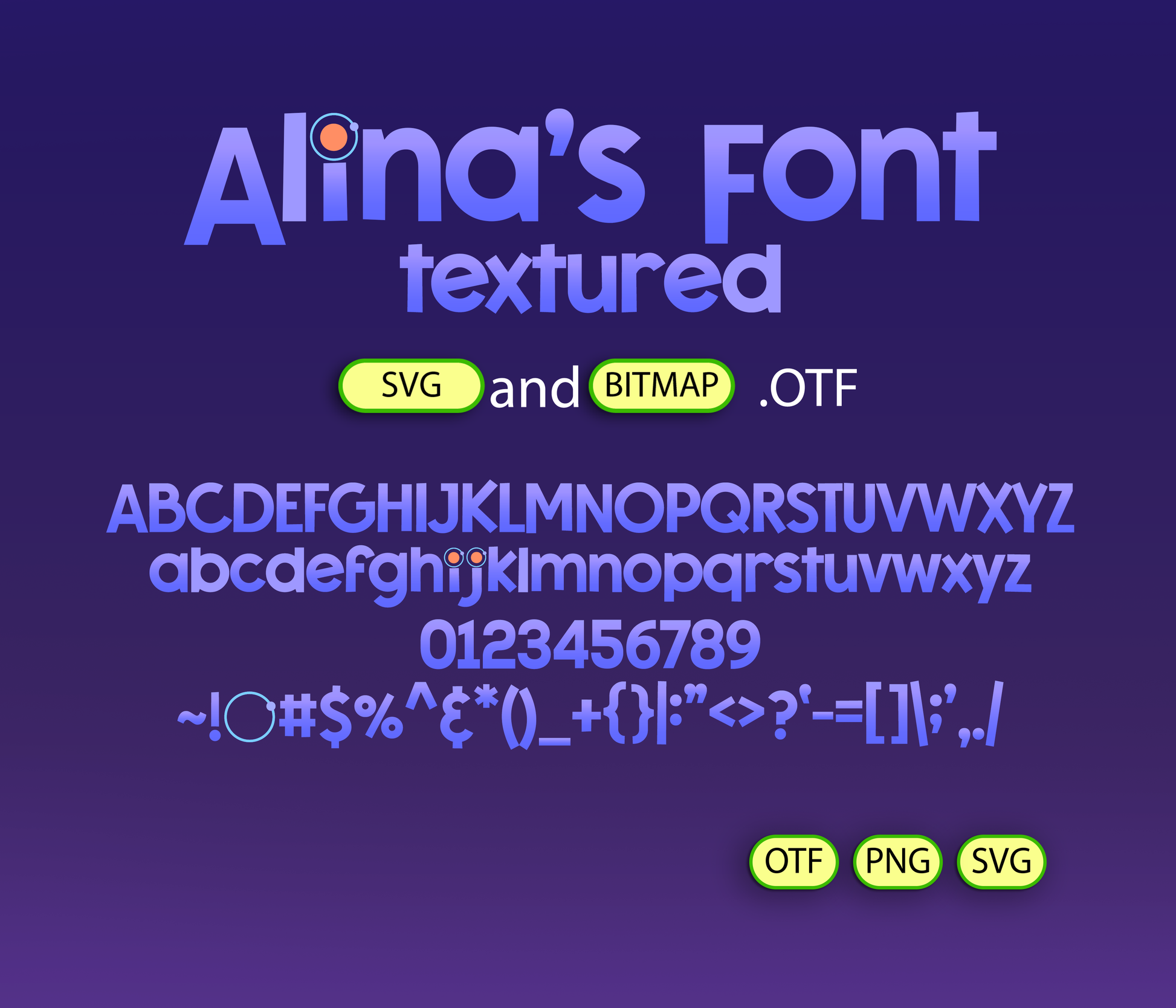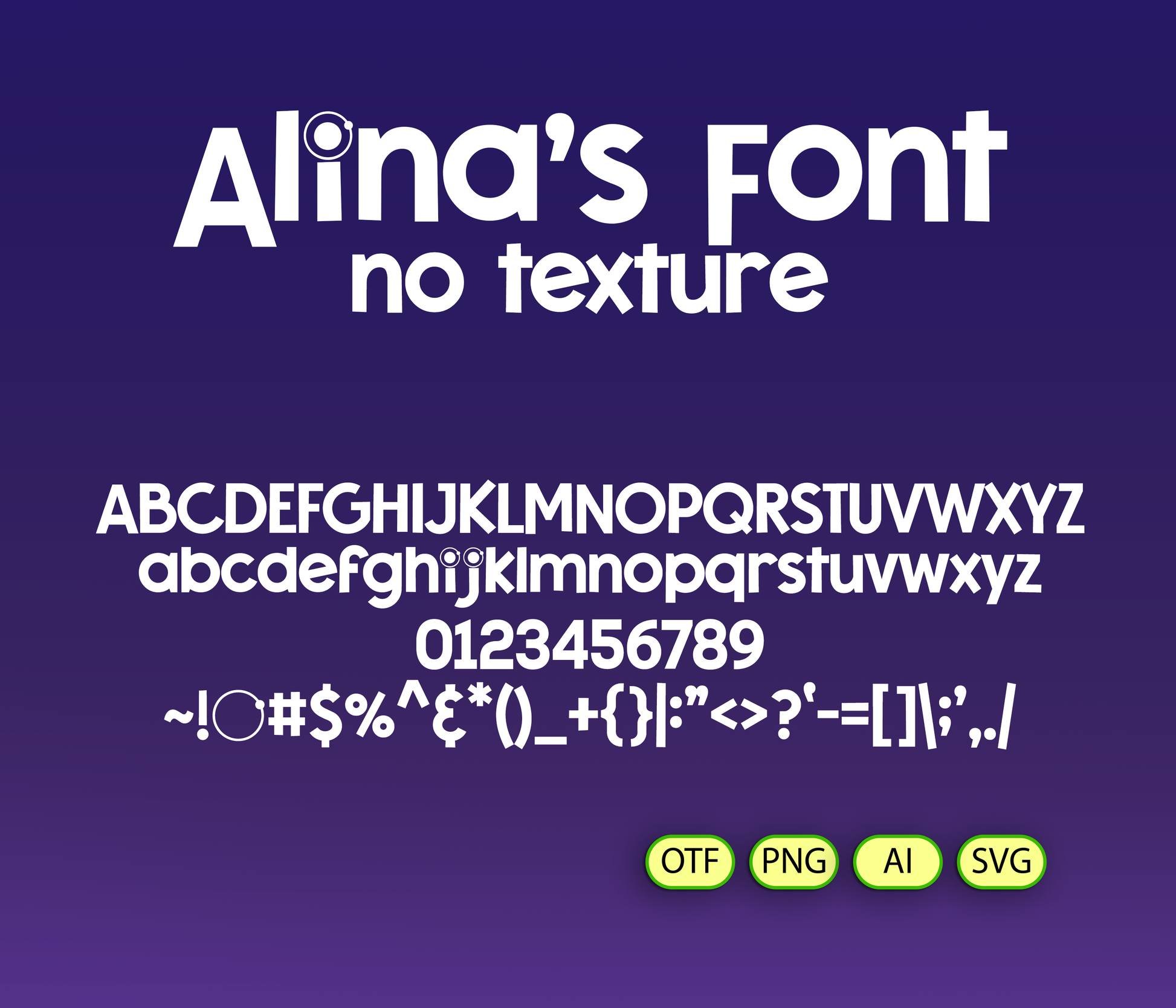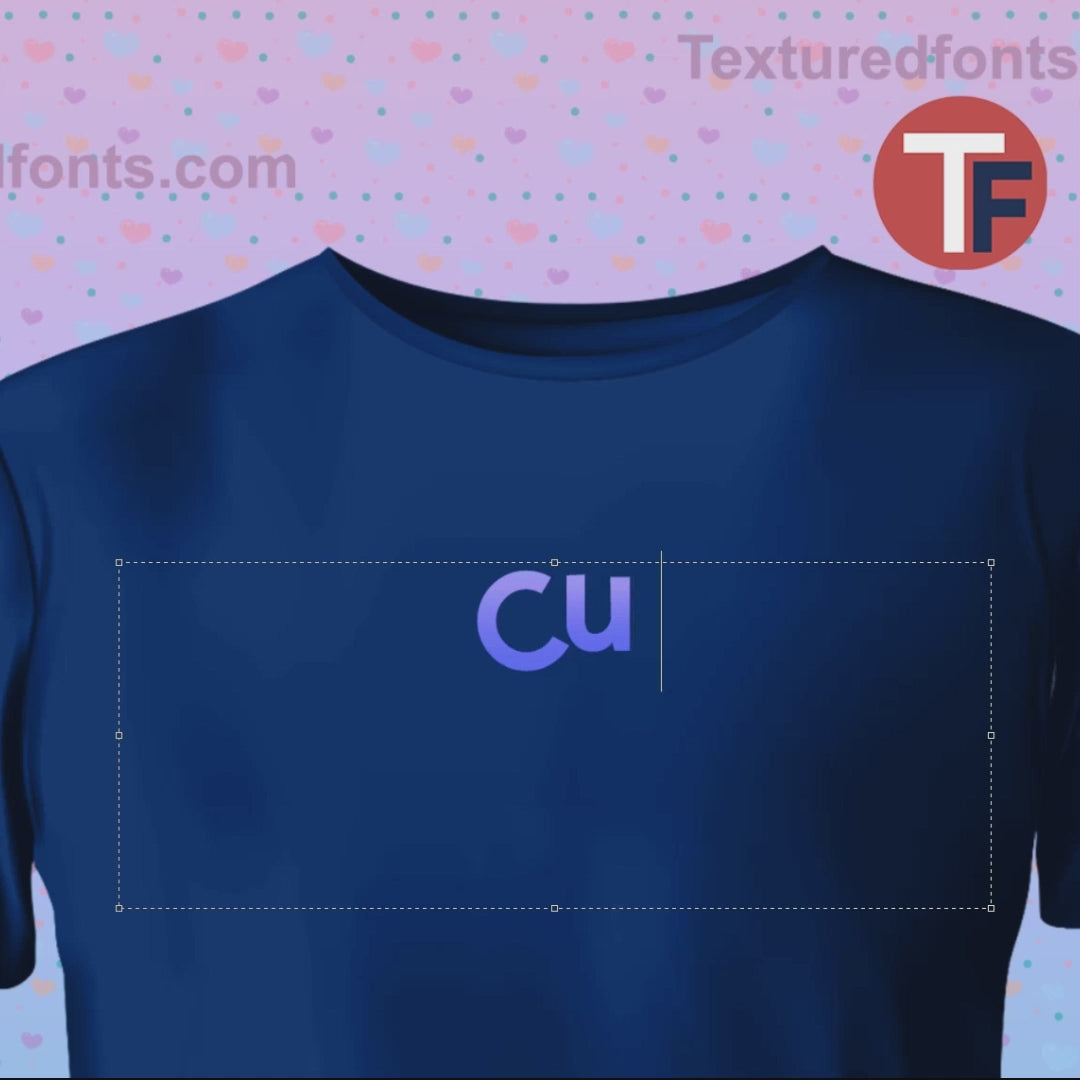
Galactic Ventures Font Textured
Discover Cosmic Creativity with the Galactic Ventures Font
Unveil the interstellar charm of the Galactic Ventures font, designed to capture the futuristic and adventurous spirit of cosmic exploration. Perfect for fans of space-themed content, sci-fi enthusiasts, and creative designers, this font brings the mystery and wonder of the universe to your projects. Whether you're crafting event invitations, designing digital media, or creating themed merchandise, our Galactic Ventures font ensures your work resonates with the captivating essence of outer space.
Our Galactic Ventures font features sleek, modern lines with subtle, futuristic elements that echo the aesthetics of space travel and cosmic phenomena. This versatile font is suitable for a wide range of applications:
To ensure broad usability and flexibility, our Galactic Ventures font includes both textured and non-textured variants. The non-textured version is particularly valuable, ensuring compatibility with all types of software, including Canva. This feature makes it incredibly easy for users of all skill levels to integrate the font into their designs, enhancing accessibility and ease of use across various digital and print platforms.
Our Galactic Ventures font not only captures the essence of futuristic and space-themed adventures but also empowers you to bring a touch of the cosmos into your creative projects. Whether you’re developing promotional materials, crafting unique merchandise, or enhancing digital content, this font allows you to communicate with the excitement and wonder of space exploration. Ready to launch your designs into the stratosphere? This font is your gateway to a universe of creativity and inspiration.